What are Preppy Fonts?
Preppy fonts are often associated with a sense of sophistication, elegance, and a classic yet modern aesthetic. They are commonly used in upscale or refined designs, such as fashion branding, invitations, stationary, and websites targeting a sophisticated audience. Here are some characteristics commonly found in preppy fonts:
- Serifs: Preppy fonts tend to have serifs, which are small lines or strokes that extend from the ends of the main strokes of the letters. These serifs give the font a more traditional and formal appearance.
- Elegance: Preppy fonts exude elegance and refinement. They often have clean lines, balanced proportions, and an overall polished look.
- Thin and Bold Variations: Many preppy fonts offer both thin and bold variations, allowing for versatility in design. The thin versions contribute to a delicate and sophisticated feel, while the bold versions can add emphasis and impact.
- Uppercase Dominance: Preppy fonts often have uppercase letters that are slightly larger and more dominant than the lowercase letters. This can contribute to a sense of formality and importance.
- Tall Ascenders and Descenders: Ascenders are the parts of letters that extend above the x-height (the height of lowercase letters), while descenders extend below the baseline. Preppy fonts may have taller ascenders and descenders, which can make the text appear more graceful.
- Consistency: These fonts usually maintain a consistent stroke weight and angle across letters. This consistency contributes to a harmonious and balanced overall appearance.
- Geometric or Humanist Influences: Preppy fonts might have either geometric influences, with clean lines and shapes, or humanist influences, which feature slightly more varied and organic shapes inspired by handwriting.
- Moderate Ornamentation: While preppy fonts are generally clean and uncluttered, they might include subtle decorative elements or flourishes to add a touch of refinement without becoming overly ornate.
- Wide Letter Spacing: Preppy fonts often have slightly wider letter spacing (tracking) than more traditional fonts. This spacing can enhance readability and lend a modern touch.
- Classic and Timeless: Preppy fonts tend to have a timeless quality that transcends trends. They evoke a sense of nostalgia and can be used in various contexts without appearing outdated.
Best Canva Preppy Fonts
1. Bodoni FLF
Bodoni FLF is a modern serif font known for its high contrast between thick and thin strokes, giving it a dramatic and elegant appearance. It embodies a sense of sophistication and is often used for titles, headings, and logos in upscale designs.
2. Didot LP Display
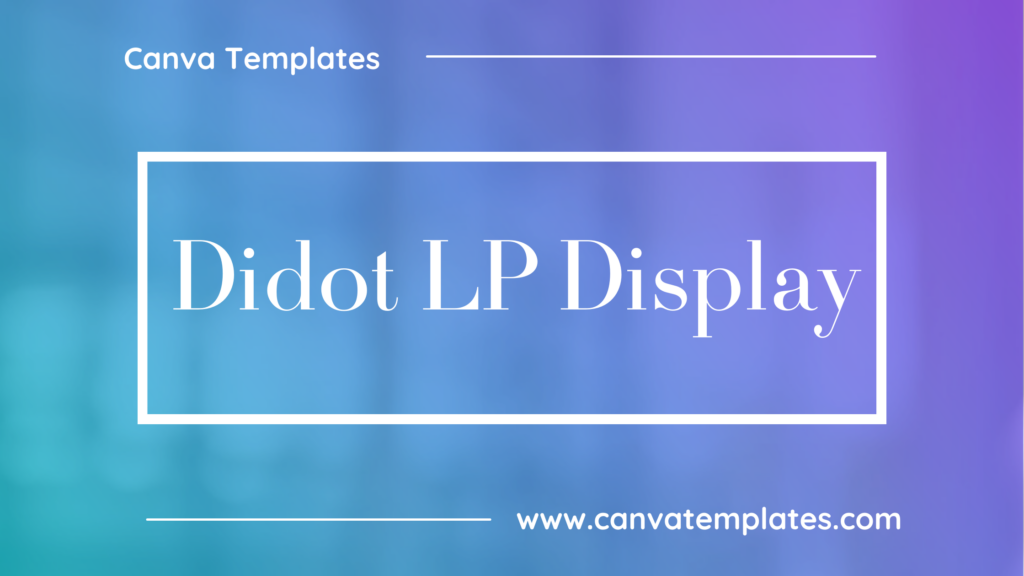
Didot LP Display is a refined and stylish serif font with high contrast and thin, graceful letterforms. It exudes an air of elegance and luxury, making it suitable for fashion, branding, and editorial designs that aim for a classic and sophisticated look.
3. Garamond
Garamond is a timeless serif font known for its readability and classic elegance. Its balanced proportions and moderate contrast between strokes make it versatile for both body text and headings in preppy designs with a touch of tradition.
4. Optima
Optima is a unique hybrid font with elements of both serif and sans-serif styles. It features smooth curves and a clean appearance, making it suitable for preppy designs that aim to strike a balance between modern and traditional aesthetics.
5. Univers
Univers is a versatile and modern sans-serif font known for its clear and orderly design. With a range of weights and widths, it can be adapted for various preppy design contexts, conveying a sense of order and sophistication.
6. Playfair Display
Playfair Display is an elegant serif font with high contrast and distinctive serifs. It evokes a sense of refinement and vintage charm, often used for luxury branding, invitations, and other preppy designs where a touch of nostalgia is desired.
7. Proxima Nova
Proxima Nova is a contemporary sans-serif font with a clean and sleek design. Its versatility and wide range of weights make it suitable for modern preppy designs that value both clarity and sophistication.
8. Goudy
Goudy is a classic serif font with a slightly old-world feel. It has a touch of calligraphic influence, making it well-suited for preppy designs that aim to blend tradition with elegance.
9. Sabon
Sabon is an elegant and readable serif font with a harmonious balance between its letterforms. Its timeless design lends itself well to preppy designs that emphasize readability and sophistication.
10. Futura Black
Futura Black is a bold and geometric sans-serif font. Its distinct shapes and strong lines make it ideal for creating impactful preppy designs that want to convey a sense of modernity and boldness.
Conclusion